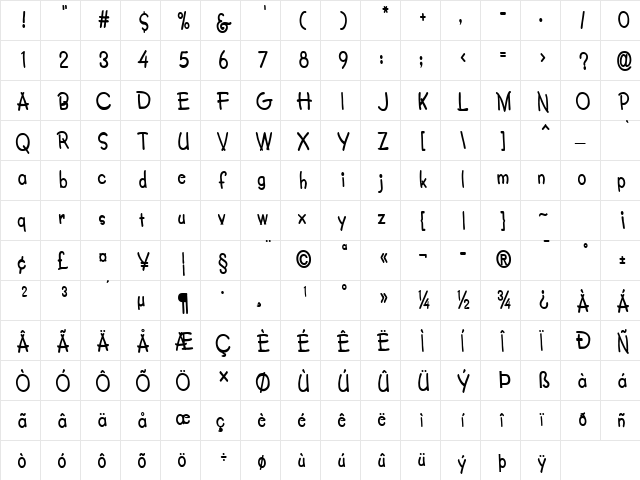
CrayonCondensed Bold Free Font
CrayonCondensed Bold
Design Context for CrayonCondensed
CrayonCondensed is a composed and adaptable typeface that performs quietly and consistently across a wide range of design contexts. Its bold stroke weight gives it real presence on the page. Its narrow stance lets it pack a punch even in space-constrained designs.